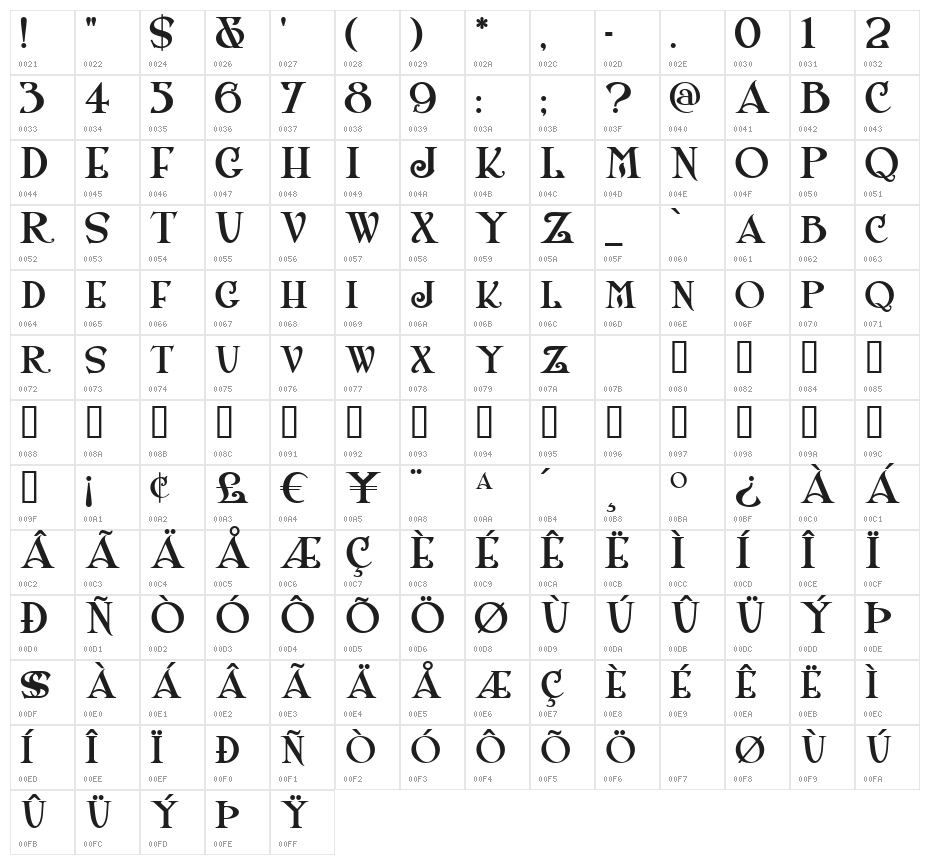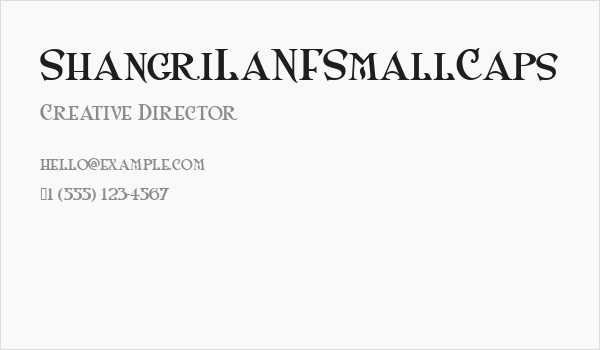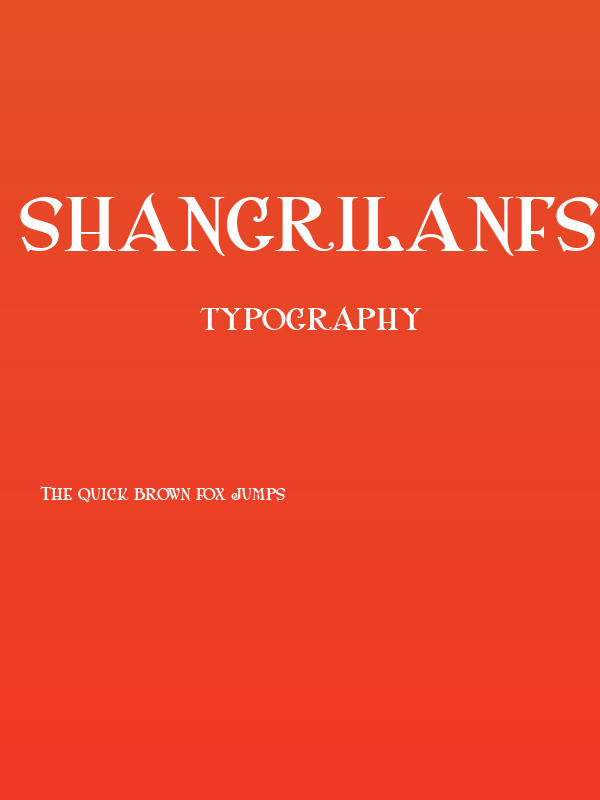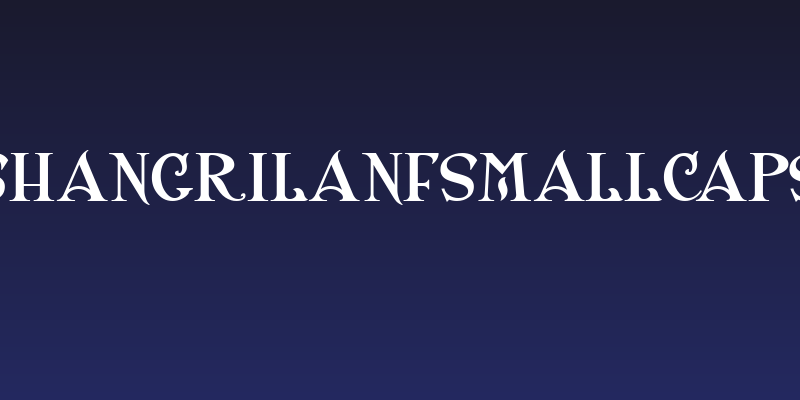
ShangriLaNFSmallCaps Font
ShangriLaNFSmallCaps Description
This font features a bold and decorative style with a unique flair that combines traditional serif elements with playful, artistic touches. Each character is crafted with intricate details, such as the swirling terminals and sharp serifs, giving it a distinctive and eye-catching appearance. The uppercase letters are particularly striking, with exaggerated curves and angles that add a sense of movement and dynamism. The numerals and special characters maintain this decorative theme, ensuring consistency across the entire typeface. This font is ideal for projects that require a bold statement and a touch of elegance.
| Proposed Projects | Ideal for branding, posters, book covers, and any design needing a bold, artistic touch. |